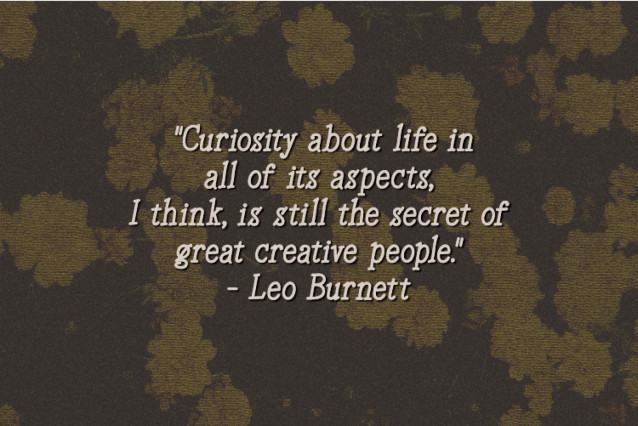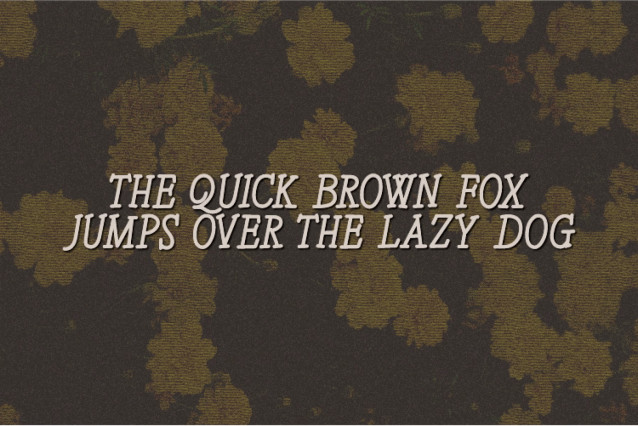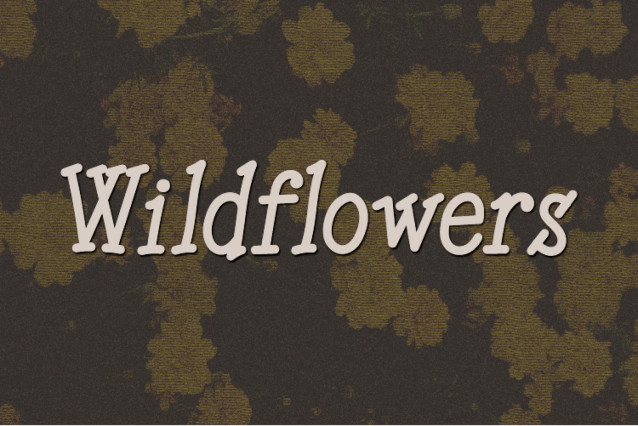
Wildflowers HS Font
Wildflowers is a fun and casual handwritten font. Whether you’re using it for crafts, digital design, presentations, or making greeting cards, this font has the potential to become your favorite go-to font, no matter the occasion!